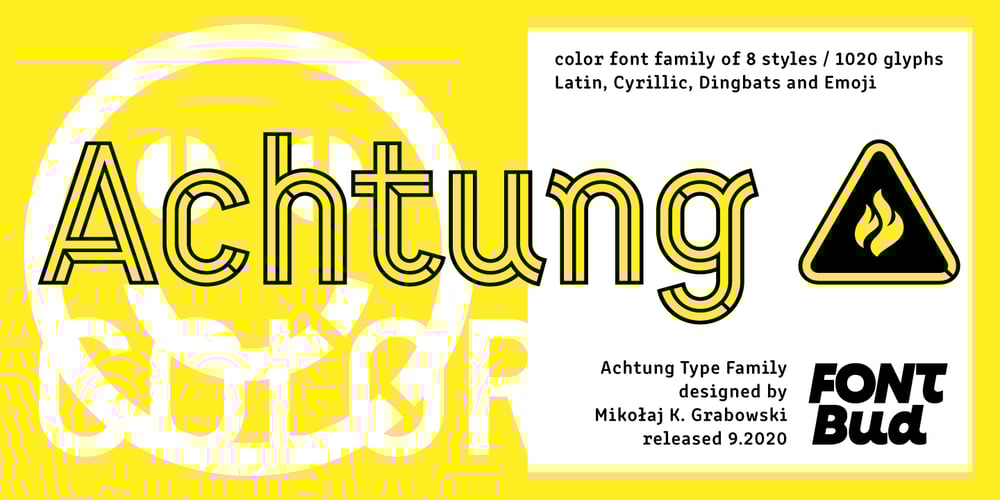
Achtung Font Family was designed by Mikołaj Grabowski and published by Mikołaj Grabowski. Achtung contains 8 styles and family package options. This is an extension of Mikolaj’s Grabowski first typeface. Formerly known as EPILEPSJA, now coming as ACHTUNG. Adding lowercase and small caps, as well as additional language support including Cyrillic script and some dingbats. ACHTUNG Color Type Family has a range of application from warnings and safety signage to propaganda posters and anarchist graffiti. Every place where you need an indisputable message, be it in headlines or titles, this font comes in handy. It’s a stencil, it’s layered and impossibly dimensional. Download the specimen HERE.I advise you to do so in order to being aware of how the layers work and how to use color fonts.Total of 1020 glyphs.Languages: Afrikaans, Albanian, Bosnian, Bulgarian, Catalan, Croatian, Czech, Danish, Dutch, English, Estonian, Finnish, French, German, Hungarian, Icelandic, Italian, Latvian, Lithuanian, Macedonian, Maltese, Norwegian, Polish, Portuguese, Romanian, Russian, Serbian, Slovak, Slovenian, Spanish, Swedish, Turkish, Ukrainian, Vietnamese, Zulu. OpenType features: small caps, localizations, superscript, fractions, ordinals, proportional and tabular figures, case sensitive forms, stylistic alternates, contextual alternates, and proper mark attachment.